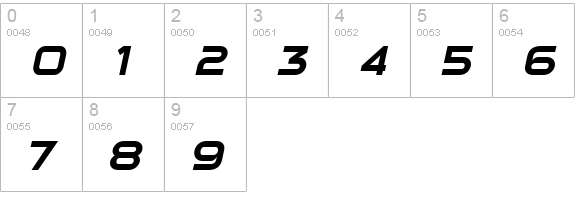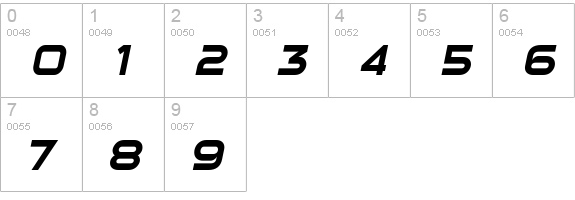
Sui Generis Italic Font Details
Sui Generis Italic is a distinctive, italic variant in the Sui typeface family \xE2\x80\x94 well suited to design and typography projects.
Sui Generis Italic font exudes sophistication and elegance with its unique and artistic design. Its italicized style adds a touch of flair to any project, making it perfect for adding a touch of class to invitations, logos, and branding materials. The sleek curves and sharp lines of Sui Generis Italic font create a harmonious balance that draws the eye and conveys a sense of modernity. What's even better is that Sui Generis Italic font is free to download at FontsMarket.com. This means you can easily enhance your designs with this exquisite font without any cost. So why wait? Elevate your projects with Sui Generis Italic font today and make a lasting impression with its distinctive and stylish appearance.